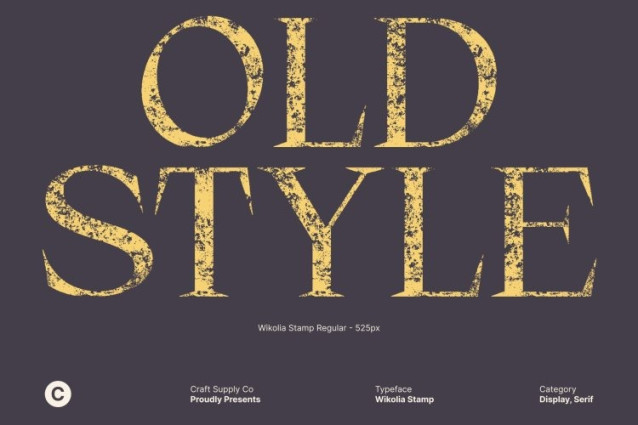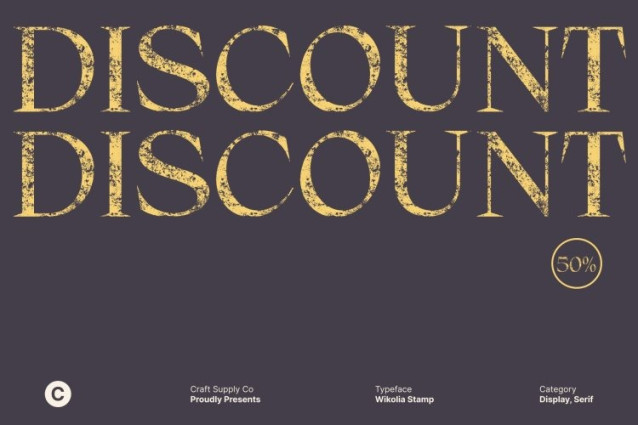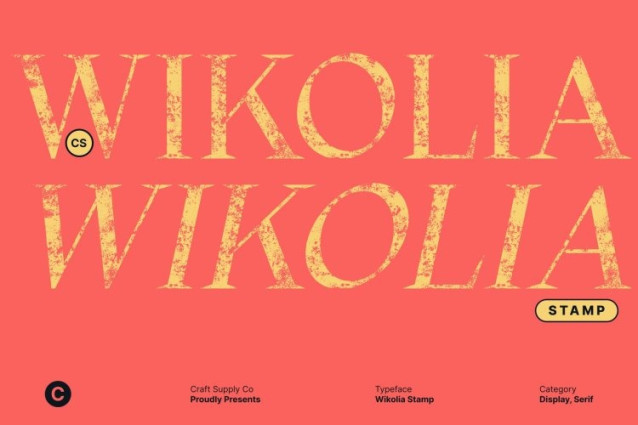
Wikolia Stamp Font
Wikolia Stamp Font This is a modern serif font defined by striking high contrast and refined detailing, enhanced with a distinctive stamp texture. Its bold strokes and elegant transitions create strong visual rhythm, while the stamped finish introduces a subtle vintage depth that adds personality without compromising clarity.
Versatile for Contemporary and Classic Design
Designed to adapt across various creative needs, this font works beautifully in headlines, body text, logos, and branding systems. The fusion of clean structure and textured character allows it to move effortlessly between modern editorial layouts and timeless corporate identities.
Professional Elegance with Vintage Warmth
With its sophisticated proportions and polished forms, this font exudes professionalism and grace. The added stamp effect softens the precision with a handcrafted nuance, giving the font a refined yet expressive presence suitable for both premium and creative applications.
Ideal for Corporate and High-End Branding
Perfect for corporate branding, luxury visuals, editorial design, packaging, and promotional materials, this font balances modern sharpness with traditional sophistication. Its high-contrast elegance combined with vintage stamp texture ensures a design that feels confident, distinctive, and enduring.